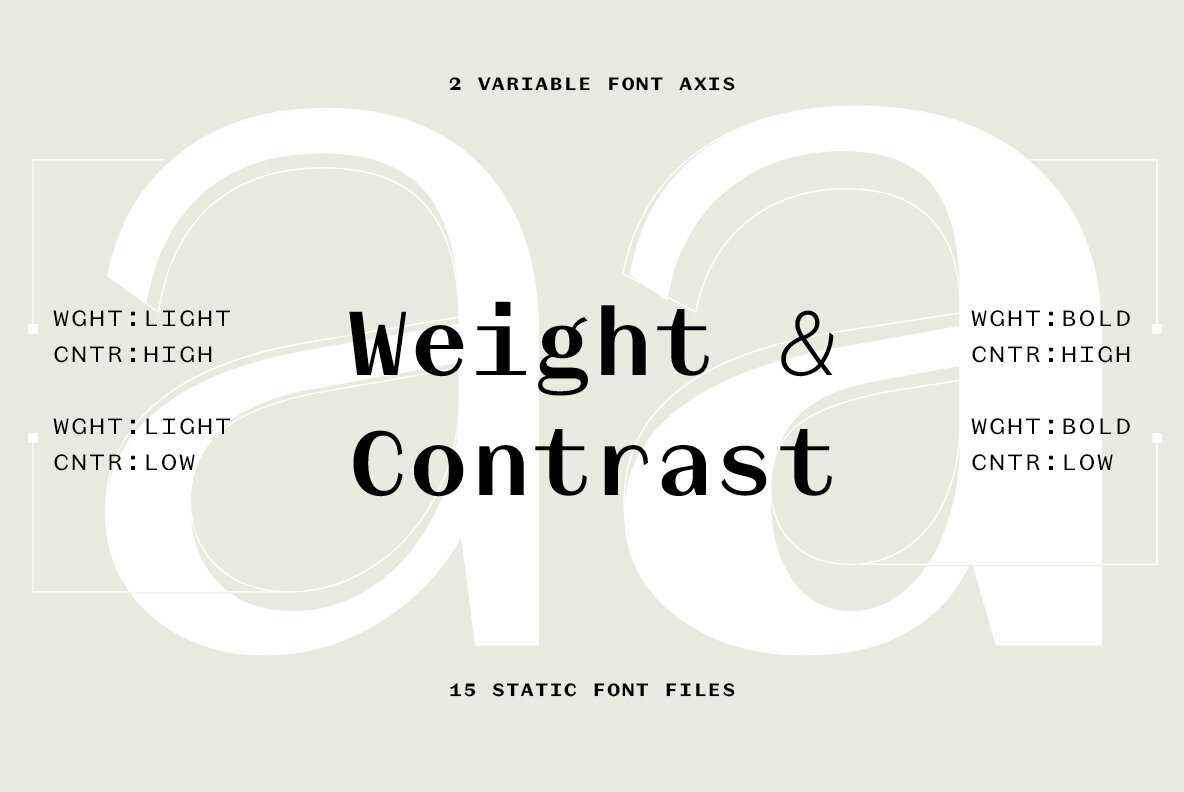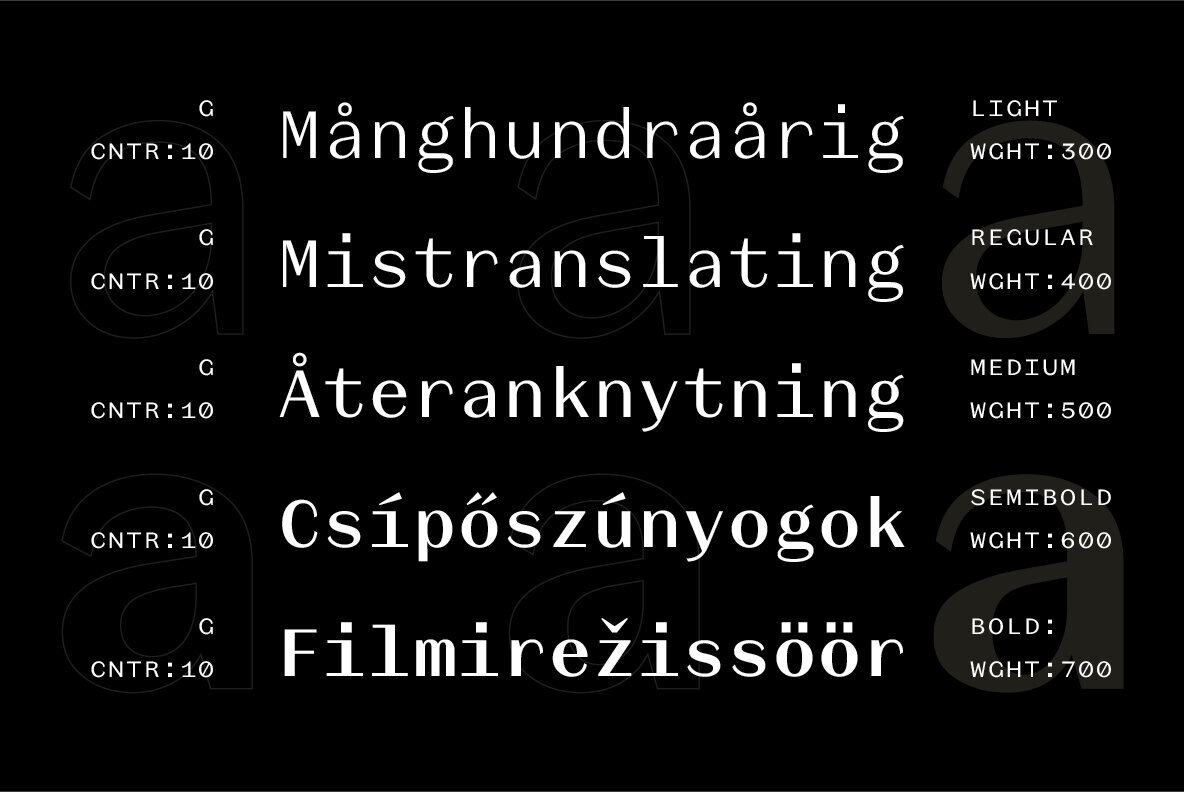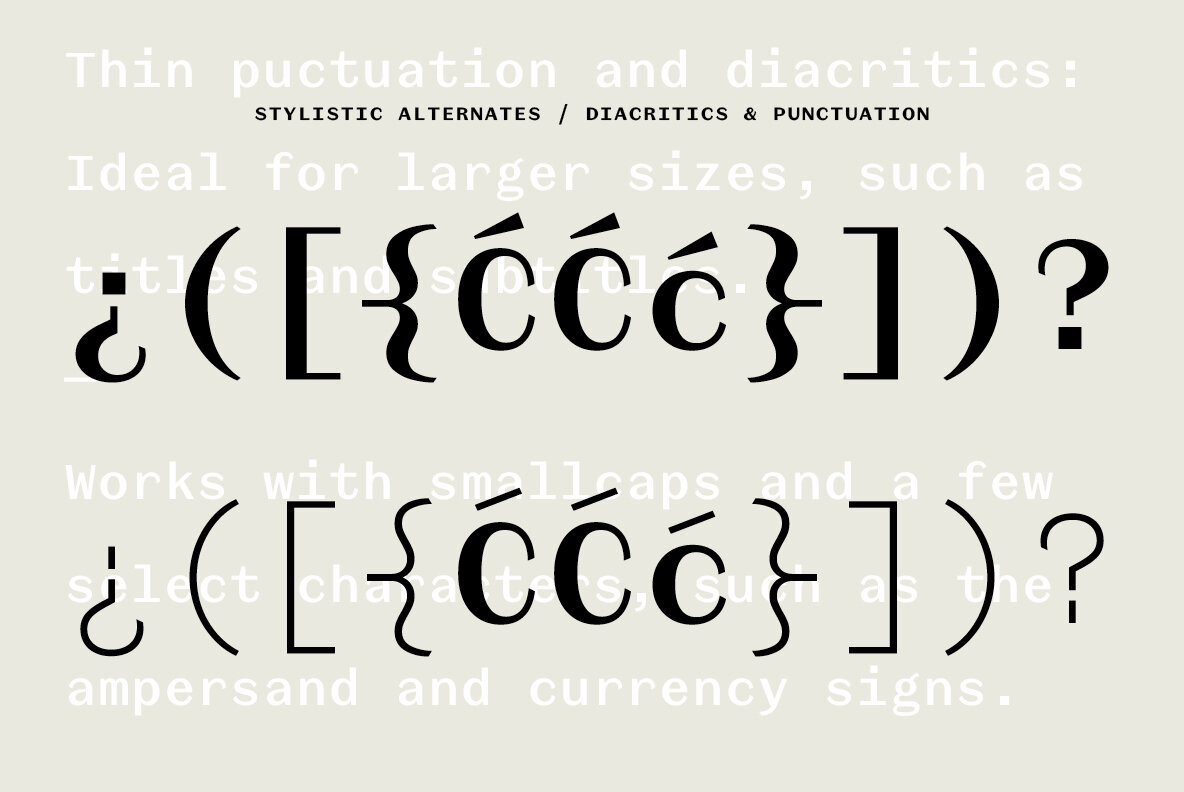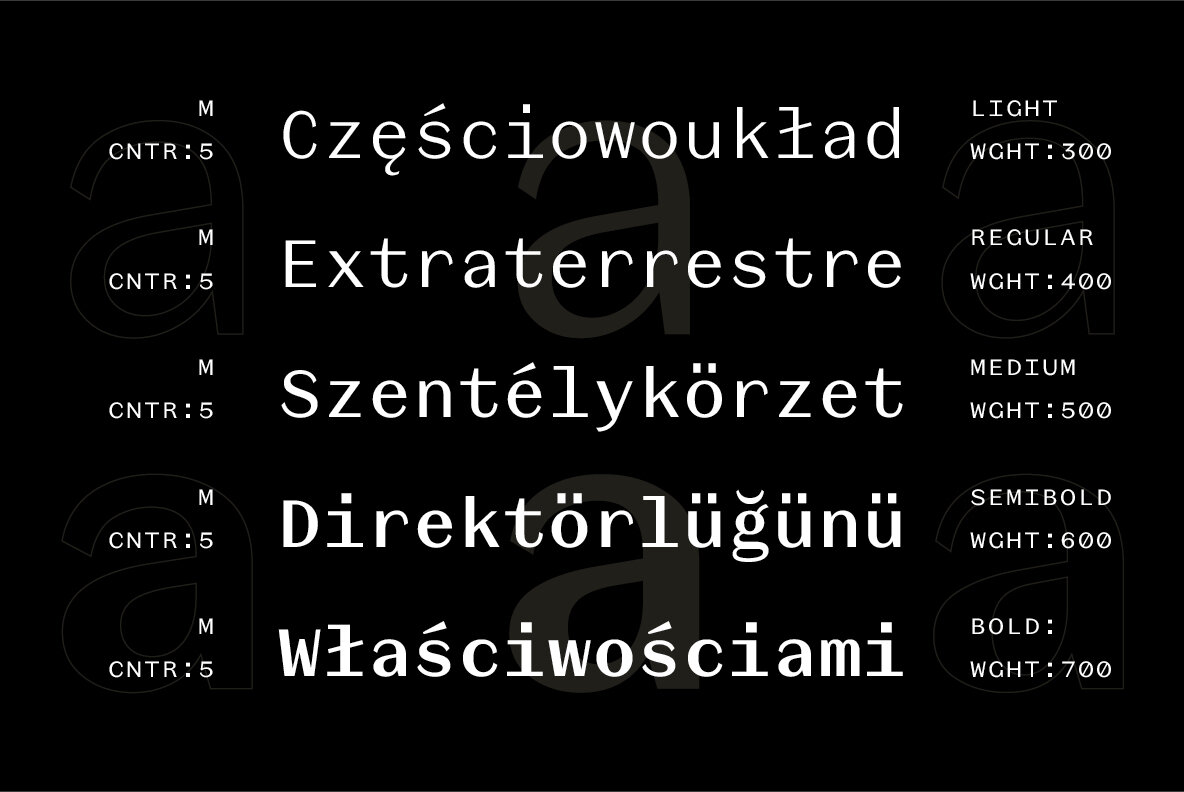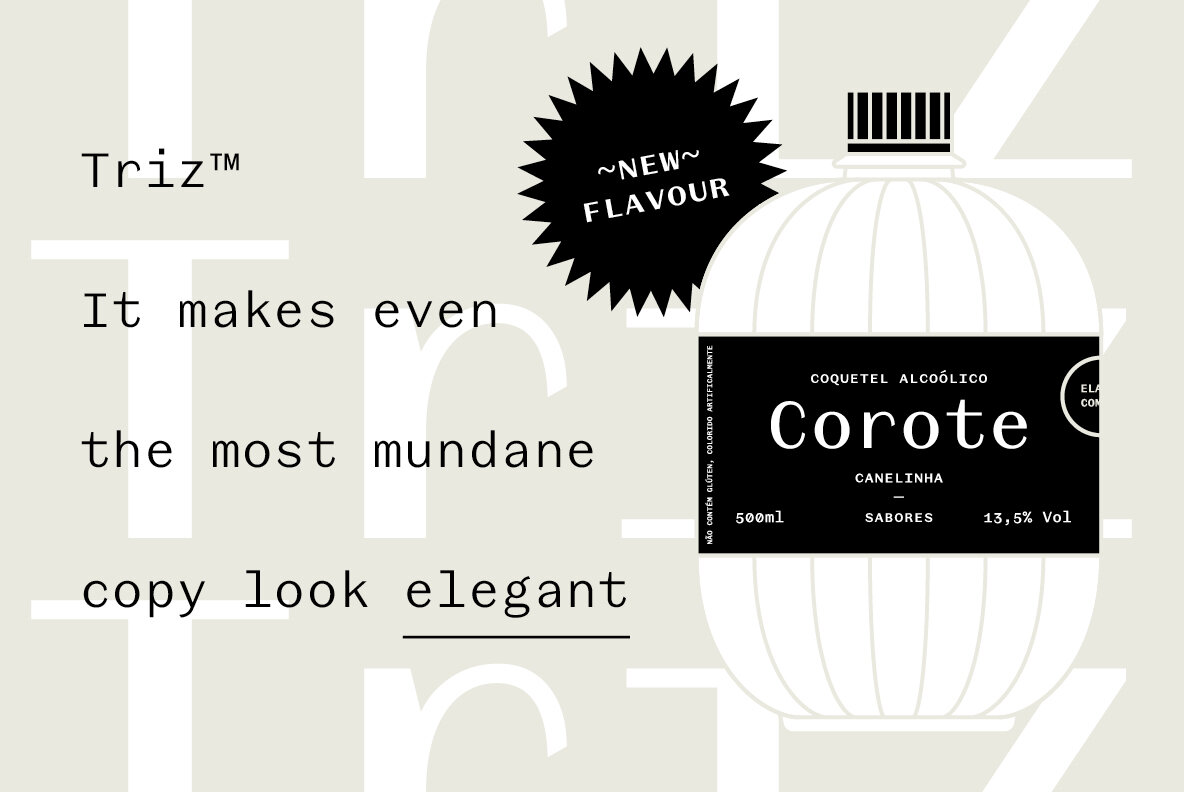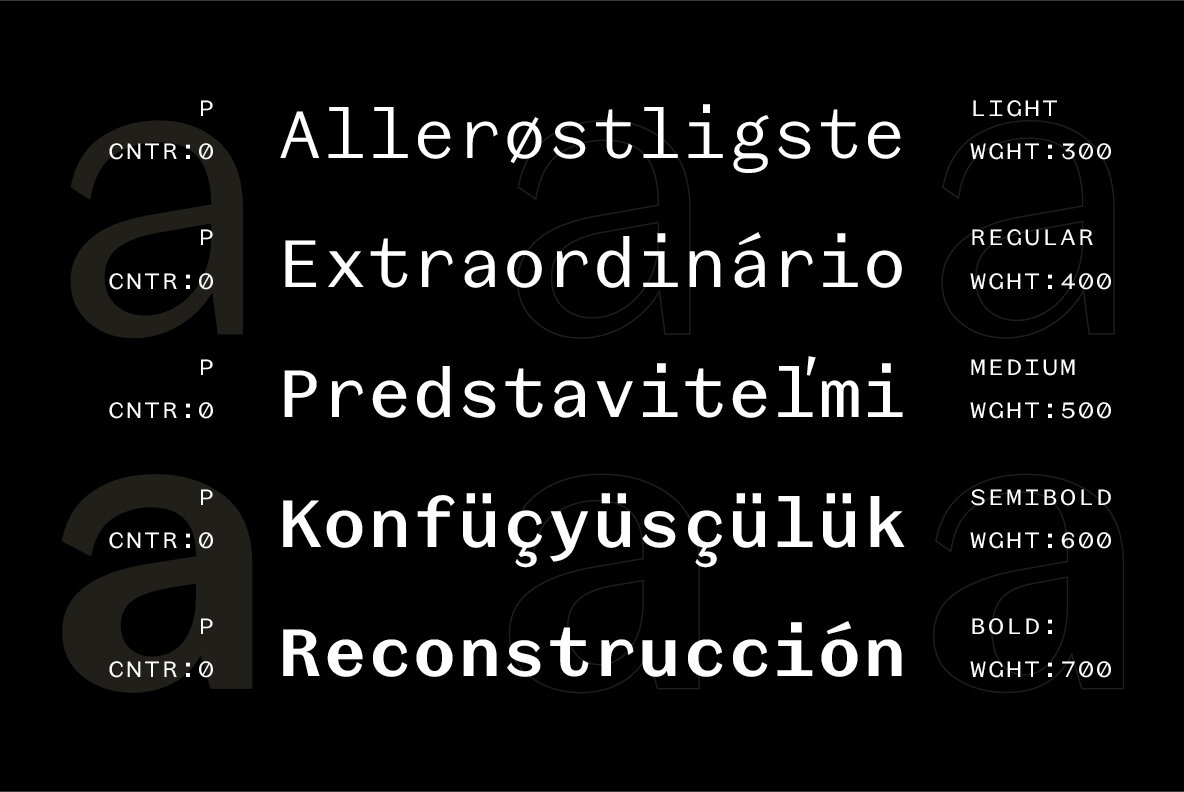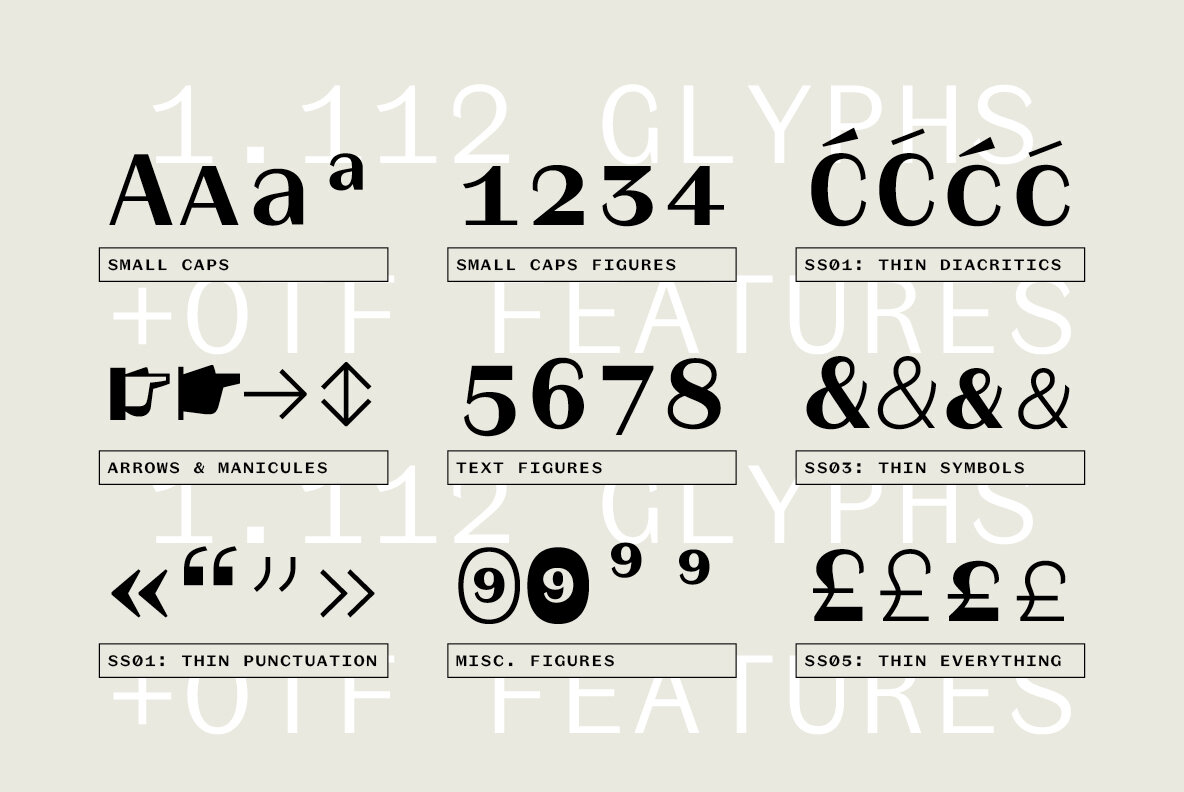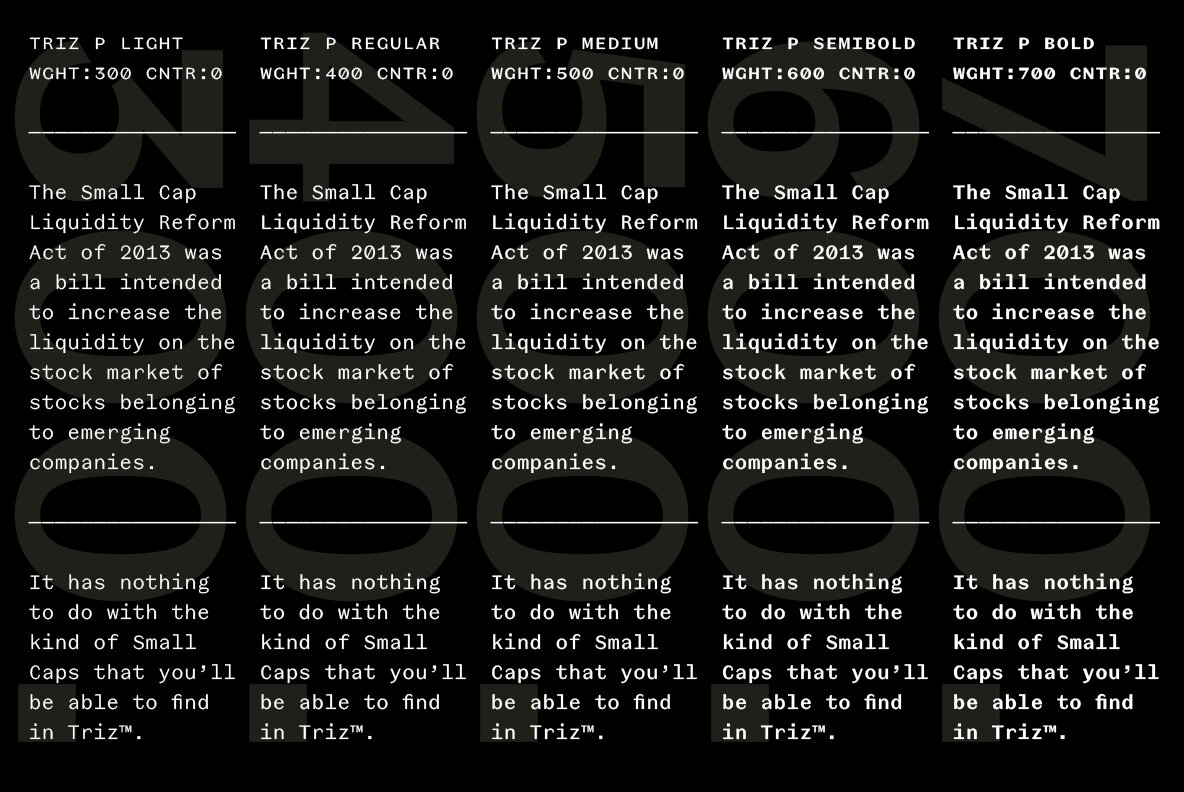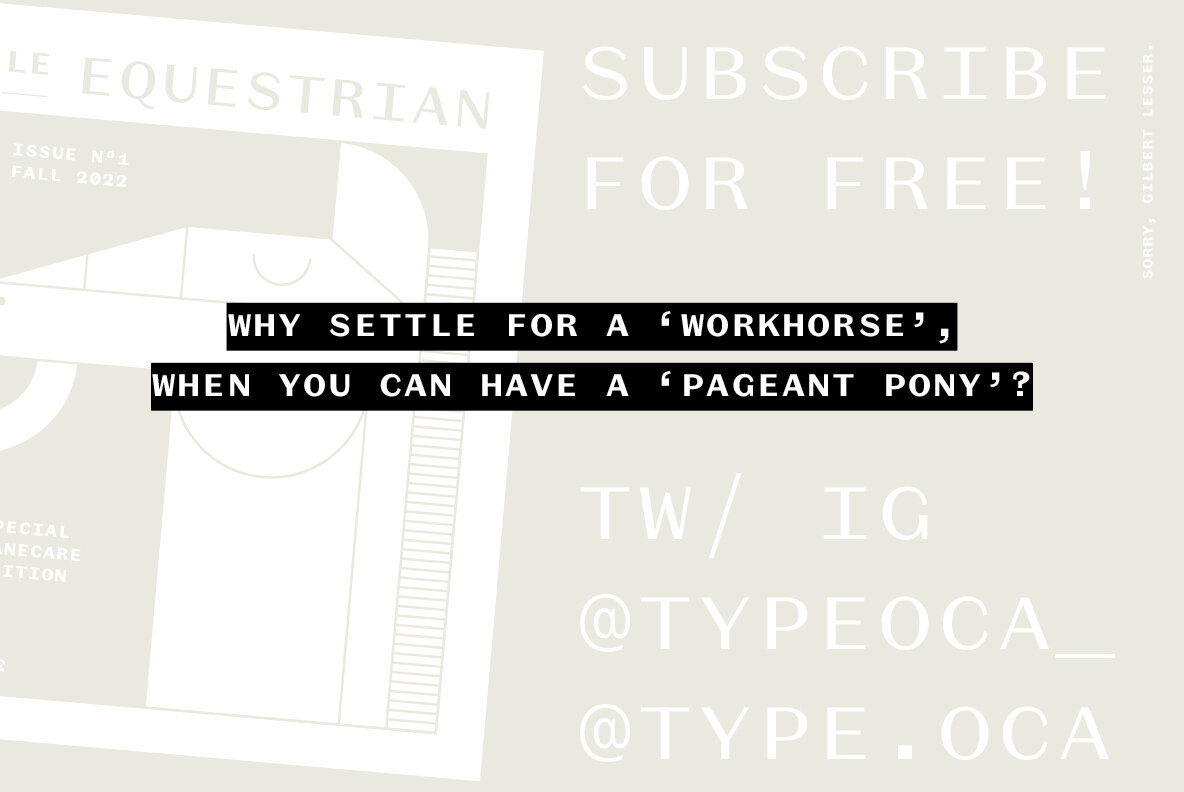
Triz Font
Triz is a high-contrast monospaced sans-serif, serving a fashion magazine style look with a typewriter rhythm. With 5 different weights and 3 different contrast variations, Triz shines on both footnotes and headlines.
Triz has an extensive language support, with more than 1.000 glyphs covering most of the latin languages. Within its glyphs, Triz has also a lot of distinct features, such as 'thin' alternates for diacritics, symbols and punctuation; small caps; arrows; manicules; and much more.